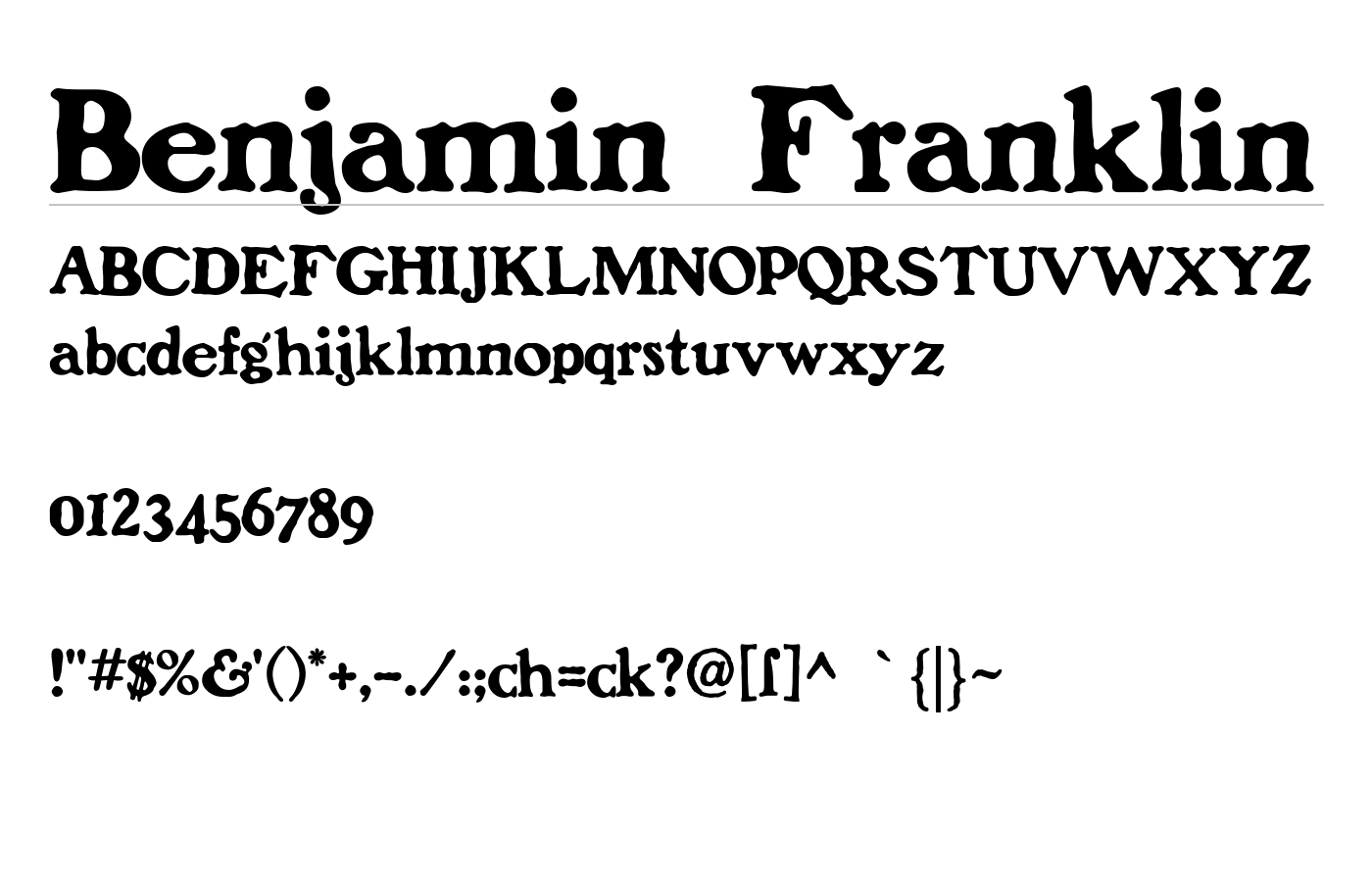
Benjamin Franklin is a bold serif font with a distinct vintage charm, featuring thick, bracketed serifs and a slightly irregular, hand-crafted feel that adds character and warmth. Its high contrast strokes and unique letter shapes make it ideal for decorative uses, logos, and headlines where a historical or classic atmosphere is desired. This font works well for branding, packaging, and editorial projects aiming for an authentic, nostalgic look with strong visual impact.
Benjamin Franklin Font
About Benjamin Franklin Font